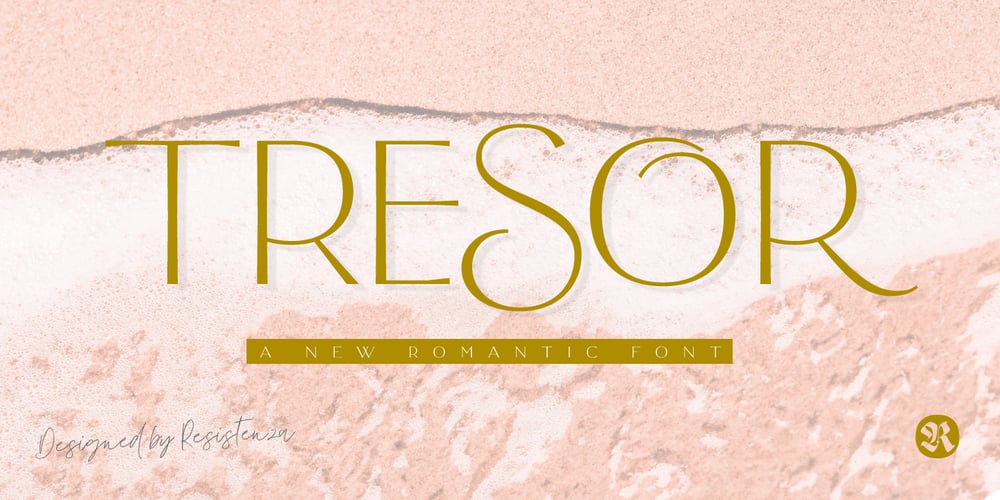
Tresor Font Family was designed by Giuseppe Salerno, Paco González and published by Resistenza. Tresor contains 6 styles and family package options. Introducing Tresor, a minimalist modern elegant vintage font that exudes classic charm with a romantic twist. Derived from the French word for “treasure,” Tresor lives up to its name by offering a plethora of ornate alternates and ligatures, reminiscent of precious jewels adorning a crown. With over 1000 glyphs accessible through OpenType features, this font beckons you to explore its treasure trove of customisation options, including stunning ligatures, special alternative glyphs, ornaments, and robust multilingual support.Tresor seamlessly blends the timeless sophistication of a serif font with the sleek simplicity of a sans serif, resulting in a versatile typeface that transcends conventional boundaries. Its smooth, clean lines and subtle contrasts lend it an air of refinement, making it equally suitable for both large-scale displays and small-scale text.Whether used for branding projects, logo design, clothing branding, product packaging, magazine headers, or as a stylish text overlay on any background image, Tresor adds a touch of elegance and sophistication to any design endeavour. Its understated beauty and adaptability make it a valuable asset for designers seeking to elevate their creations with a touch of vintage-inspired charm.More About Opentype Features: https://bit.ly/opentype-rsz